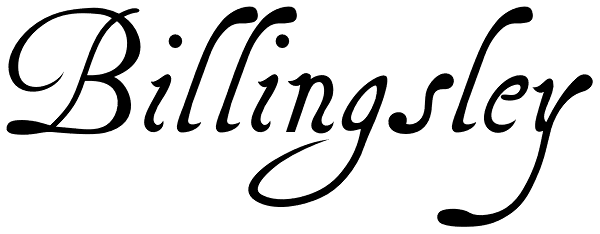
Billingsley
Billingsley is a script based mainly on a writing specimen of the penman Martin Billingsley. Originally published in 1618, this version is not an exact copy as the letter-forms have been subtly modified for digital use. This results in an even flow...